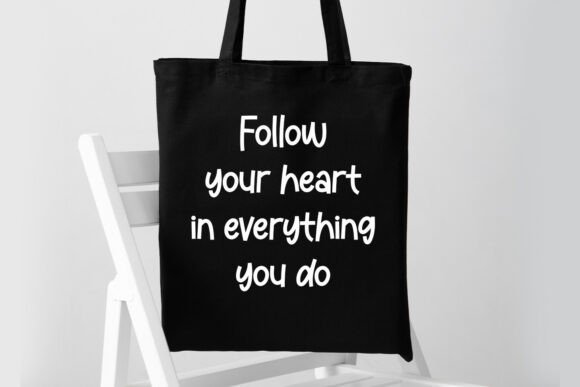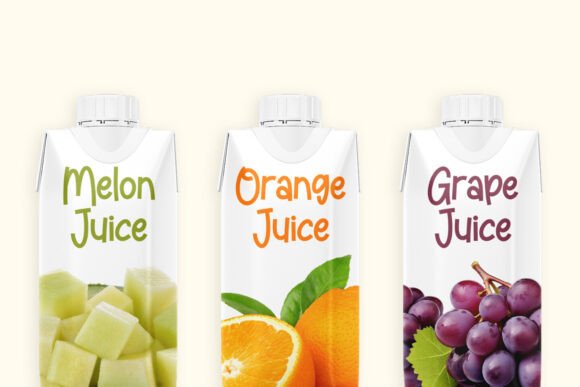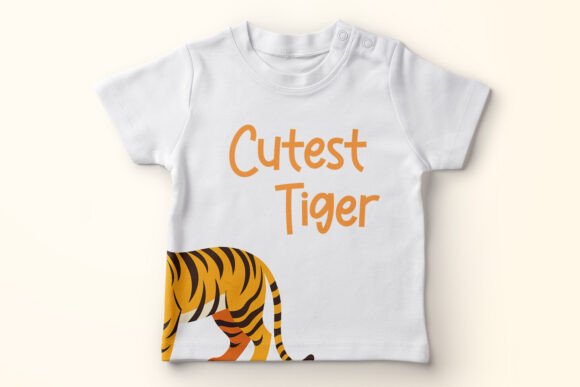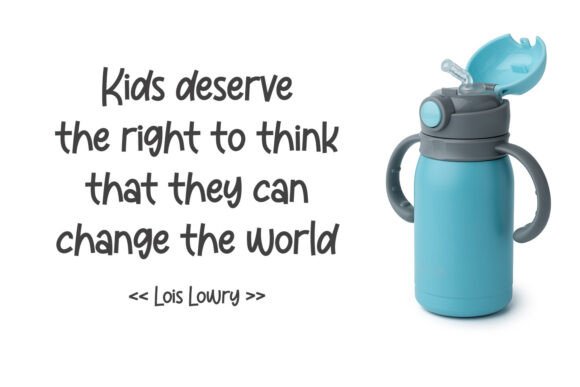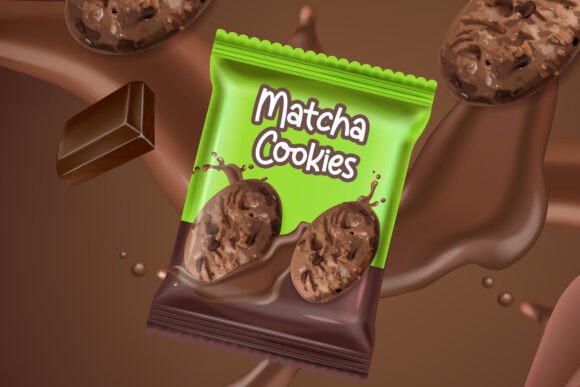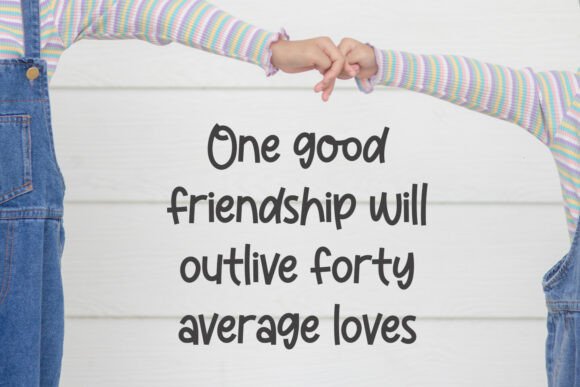
Cokolate Font: The Sweet and Friendly Handwritten Font for Your Design Needs
Are you a designer or crafter looking for a font that can add a touch of sweetness and friendliness to your projects? Look no further than Cokolate Font! This beautiful handwritten font is perfect for a wide range of designs, from invitations and greeting cards to branding and packaging. In this article, we’ll take a closer look at Cokolate Font and explore its unique features, uses, and benefits.
What is Cokolate Font?
Cokolate Font is a sweet and friendly handwritten font that is designed to bring a personal touch to your designs. Its natural and unique style makes it incredibly fitting to a large pool of designs, from rustic and vintage to modern and playful. The font’s creator has carefully crafted each letter to ensure that it is legible, yet charmingly imperfect, giving it a homemade feel that is sure to capture the hearts of your audience.
Unique Features of Cokolate Font
So, what makes Cokolate Font so special? Here are just a few of its unique features:
• Handwritten style: Cokolate Font is a true handwritten font, with each letter carefully crafted to mimic the natural flow and imperfections of handwriting.
• Natural and unique: The font’s natural and unique style makes it perfect for designs that require a personal touch.
• Legible and readable: Despite its handwritten style, Cokolate Font is highly legible and readable, making it perfect for body text and headings.
• Versatile: Cokolate Font is incredibly versatile, and can be used for a wide range of designs, from formal to informal.
Uses of Cokolate Font
Cokolate Font is a versatile font that can be used for a wide range of designs, including:
• Invitations and greeting cards: Add a personal touch to your invitations and greeting cards with Cokolate Font’s sweet and friendly style.
• Branding and packaging: Use Cokolate Font to create unique and eye-catching branding and packaging that stands out from the crowd.
• Signage and display: Cokolate Font is perfect for signage and display projects, such as menus, posters, and flyers.
• Digital design: Use Cokolate Font in your digital designs, such as social media graphics, blog posts, and email newsletters.
Benefits of Using Cokolate Font
So, why should you choose Cokolate Font for your design needs? Here are just a few benefits:
• Adds a personal touch: Cokolate Font adds a personal touch to your designs, making them more relatable and engaging.
• Unique and creative: The font’s unique and creative style makes it perfect for designers and crafters who want to stand out from the crowd.
• High-quality: The font is high-quality and highly legible, making it perfect for both print and digital designs.
Tips for Using Cokolate Font
Here are a few tips for using Cokolate Font in your designs:
• Use it sparingly: Cokolate Font is a statement font, so use it sparingly to add emphasis and interest to your designs.
• Pair it with other fonts: Pair Cokolate Font with other fonts to create a unique and eye-catching combination.
• Experiment with colors: Experiment with different colors and textures to add depth and interest to your designs.
• Have fun: Most importantly, have fun with Cokolate Font! Its sweet and friendly style is sure to bring a smile to your face.
In conclusion, Cokolate Font is a sweet and friendly handwritten font that is perfect for designers and crafters who want to add a personal touch to their designs. Its natural and unique style makes it incredibly fitting to a large pool of designs, and its legibility and readability make it perfect for both print and digital designs. So why not give Cokolate Font a try? With its ease of use, high-quality design, and versatility, it’s sure to become a favorite in your design arsenal.